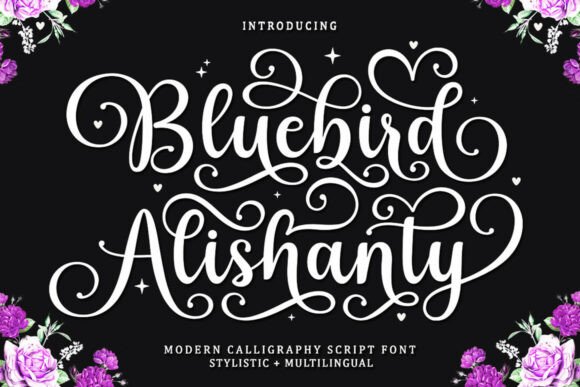
The Whimsical Charm of Bluebird Alishanty Font
Have you ever been in the middle of a design project, and suddenly, you’re stuck on finding the perfect font? I recall a particularly frustrating experience while working on a wedding stationery set for a client. The design was almost complete, but the font just wasn’t right. It was too formal, too bland, or just didn’t capture the romantic essence I was aiming for. That’s when I stumbled upon Bluebird Alishanty, a modern calligraphy script font that instantly breathed life into my design.
A Personal Review of Bluebird Alishanty
As a designer, I’m always on the lookout for fonts that can add a touch of elegance and whimsy to my projects. Bluebird Alishanty has quickly become one of my go-to fonts, and here’s why:
- ✨ Romantic and Artisanal Aesthetic: The font’s rhythmic, hand-penned silhouette perfectly captures a romantic and artisanal aesthetic, making it an exceptional choice for wedding stationery, feminine branding, boutique logo designs, and sentimental greeting cards.
- ✅ Highly Versatile: Whether you’re designing a wedding invitation, a boutique logo, or a social media graphic, Bluebird Alishanty adapts beautifully to various design contexts.
- 💫 Unique Character: Each letterform is meticulously crafted, offering a distinctive character that sets it apart from more generic script fonts.
While Bluebird Alishanty is an outstanding font, it’s not without its quirks:
- 🤔 Legibility at Small Sizes: Like many script fonts, Bluebird Alishanty can become a bit tricky to read at very small sizes. It’s best used at larger sizes where its details can shine.
- ⚠️ Pairing Challenges: Due to its distinctive style, finding the right font to pair with Bluebird Alishanty can be a bit challenging. You’ll want to choose a font that complements its elegance without overpowering it.
The Backstory of Bluebird Alishanty
The story behind Bluebird Alishanty is one of passion and dedication. The font was crafted by a talented type designer who aimed to create a script that embodies both elegance and playfulness. Inspired by the beauty of handwritten calligraphy, Bluebird Alishanty was meticulously designed to offer a unique and versatile typographic solution for creative projects.
| Font Name | Bluebird Alishanty Font |
| Author | Bung Studio |
| What makes Bluebird Alishanty unique? | Bluebird Alishanty stands out due to its rhythmic, hand-penned silhouette that captures a romantic and artisanal aesthetic. |
| Is Bluebird Alishanty difficult to read at small sizes? | Like many script fonts, Bluebird Alishanty can be challenging to read at very small sizes. It’s recommended to use it at larger sizes for optimal legibility. |